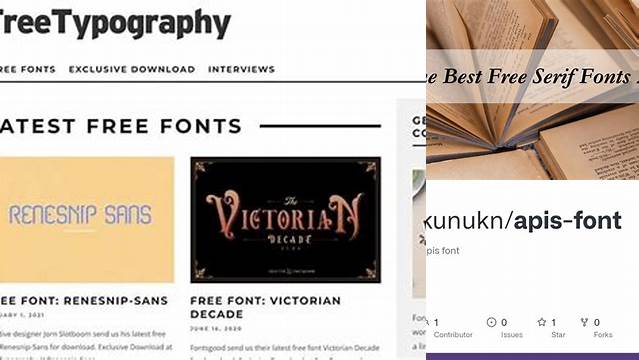
APIs Font Free: Find Free Fonts For Your Projects
Are you looking for free fonts to spice up your designs or projects? Well, you've come to the right place! In this comprehensive guide, we'll dive deep into the world of APIs Font Free, exploring various resources and options for finding and utilizing stunning fonts without breaking the bank. Whether you're a seasoned designer, a budding developer, or simply someone who appreciates good typography, this article will equip you with the knowledge and resources to elevate your creative endeavors. Let's get started, guys!
Understanding the Importance of Fonts
Before we jump into the nitty-gritty of finding free fonts, let's take a moment to appreciate the significance of typography in design. Fonts are more than just characters; they are visual communicators that convey personality, mood, and readability. A well-chosen font can make your website look professional, your presentation engaging, and your printed materials stand out. Conversely, a poorly selected font can detract from your message, making it difficult for your audience to connect with your content.
Fonts have the power to evoke emotions, reinforce branding, and enhance the overall user experience. Imagine a website for a children's toy store using a formal, serif font – it just wouldn't resonate with the target audience, would it? Similarly, a financial institution wouldn't want to use a playful, handwritten font. The right font sets the tone and helps to create the desired impression.
Typography plays a crucial role in establishing visual hierarchy, guiding the reader's eye through the content, and ensuring optimal readability. Factors like font size, line height, and letter spacing contribute to the overall legibility of text. By carefully considering these elements, you can create a visually appealing and user-friendly design.
In the digital age, where content is consumed across various devices and screen sizes, choosing responsive fonts is paramount. Some fonts are designed to scale seamlessly across different platforms, ensuring that your message remains clear and legible regardless of the viewing environment. When selecting fonts, it's essential to consider their adaptability and performance across different devices.
The world of typography is vast and ever-evolving, with new fonts being created all the time. Staying abreast of current trends and understanding the nuances of different font styles can significantly enhance your design capabilities. Experimenting with different font pairings and exploring the possibilities of typography can unlock a whole new level of creativity in your projects. So, guys, don't underestimate the power of fonts – they are the unsung heroes of design!
Exploring APIs Font Free Resources
Now that we understand the importance of fonts, let's explore the amazing world of APIs Font Free resources. There are tons of platforms and services that offer free fonts for personal and commercial use. It's important to note that while these fonts are free, they often come with specific licenses that dictate how they can be used. We'll delve into licensing later, but for now, let's focus on where to find these treasures.
One of the most popular resources for free fonts is Google Fonts. This is a massive library of open-source fonts that are completely free to use in any project, whether it's a website, a printed brochure, or a mobile app. Google Fonts is incredibly user-friendly, allowing you to browse by category, popularity, and even language. You can also preview the fonts in different sizes and styles to see how they look in your designs. The best part? Google Fonts integrates seamlessly with many web development platforms, making it super easy to embed these fonts into your websites.
Another fantastic resource is Font Squirrel. This website is dedicated to curating high-quality free fonts that are licensed for commercial use. They have a wide selection of fonts, ranging from classic serif styles to modern sans-serif designs. Font Squirrel also offers a handy Font Identifier tool that helps you identify fonts from images, which can be a lifesaver when you're trying to match a font you've seen elsewhere.
DaFont is another popular platform for free fonts. This website boasts a vast collection of fonts, contributed by designers from all over the world. While DaFont offers a wide variety of styles, it's important to be mindful of the licensing terms, as some fonts are only free for personal use. Always double-check the license before using a font in a commercial project.
Creative Market is a marketplace where designers can buy and sell digital assets, including fonts. While Creative Market is primarily a paid platform, they often offer free goods every week, including fonts. It's worth checking their website regularly to see if there are any freebies that catch your eye. Plus, they have some seriously beautiful fonts available for purchase if you're looking for something extra special.
Beyond these popular platforms, there are many other websites and individual designers who offer free fonts. Some design blogs and communities often share font resources, so it's worth keeping an eye on those as well. Remember, guys, the key is to explore, experiment, and find the fonts that best suit your projects!
Remember, typography is a powerful tool that can transform your designs from good to great. By choosing the right fonts and using them effectively, you can create visually stunning and engaging experiences for your audience. Don't be afraid to experiment, explore, and push the boundaries of typography. The world of fonts is vast and exciting, so go out there and make some magic!